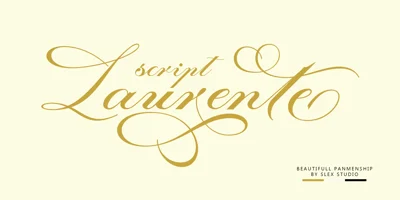
Laurente Script Font
The Laurente Script Font is ideal for wedding invitations, logos, signatures, and elegant branding projects.
This font is exciting because its stylish, handwritten calligraphy with a dancing baseline and exquisite swashes adds a sophisticated, timeless charm to designs.
The Laurente Script Font family includes a single style with 593 glyphs, featuring decorative alternates and ligatures for versatile customization.
Elevate your designs with the Laurente Script Font, a stunning calligraphy typeface crafted by Slex Studio. Perfect for designers seeking elegance, this font shines in wedding stationery, logo design, and high-end branding. Its graceful curves, crisp lines, and decorative swashes create a luxurious, handcrafted aesthetic, ideal for adding a personal touch to any project. With 593 glyphs, including OpenType features like alternates and ligatures, it offers endless creative possibilities, though professional software is recommended for full functionality.
The Laurente Script Font performs beautifully in both print and digital formats. Its flowing script enhances invitations, business cards, and posters, while its readability suits website headers or social media graphics. Supporting nearly 150 languages, it’s a versatile choice for global projects. The font pairs effortlessly with minimalist or ornate design elements, making it perfect for romantic or professional aesthetics.